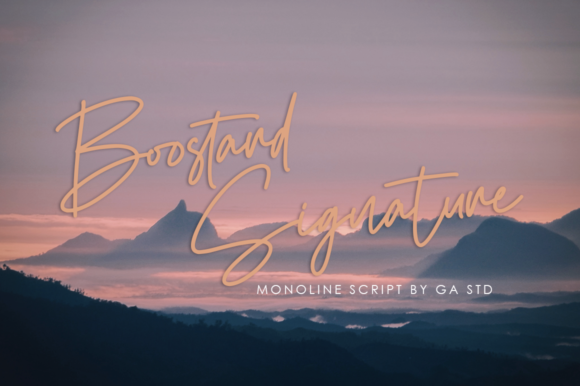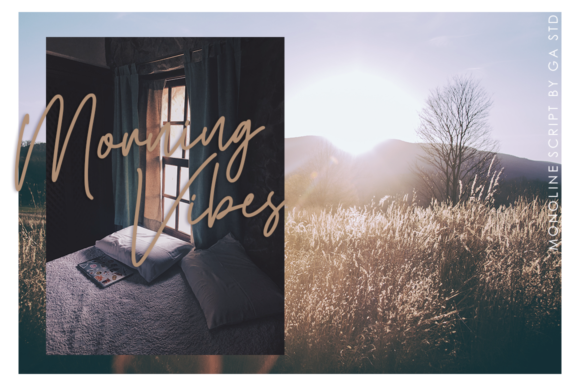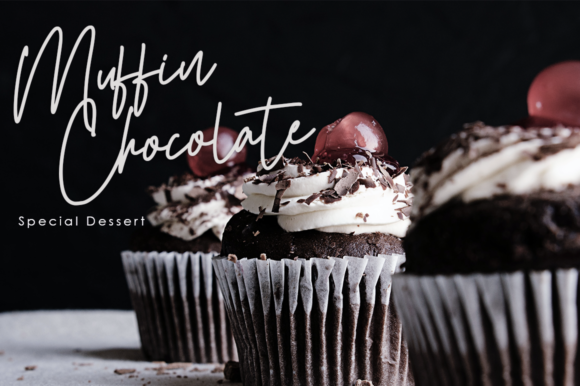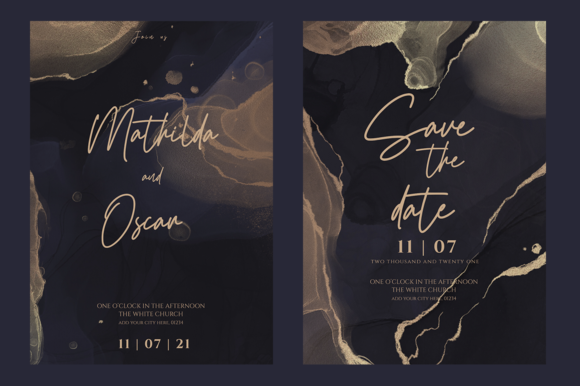
Boostard Signature Font
About Boostard Signature Font
Boostard Signature is a monoline script font featuring elegant and stunning characters and a touch of natural strokes. This typeface is suitable for many creative ideas, including logo/branding projects, large header text, product packaging, and signatures.